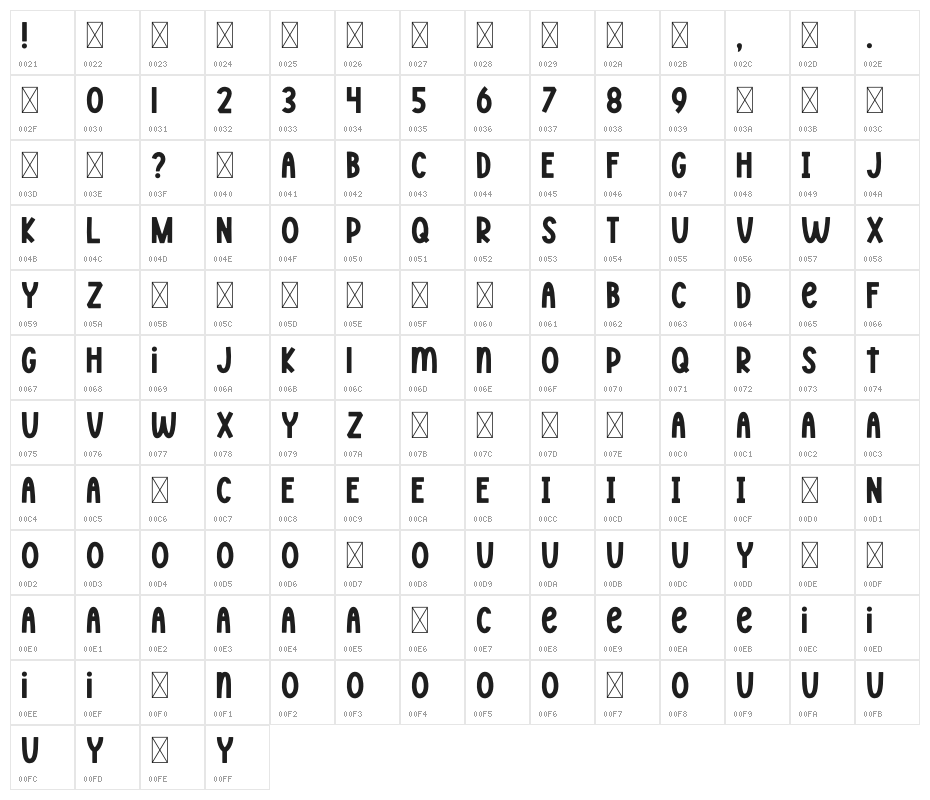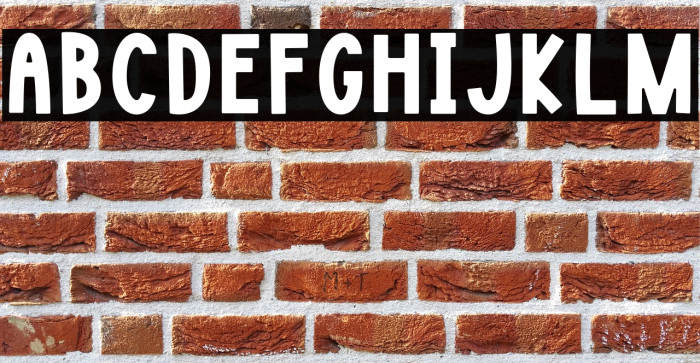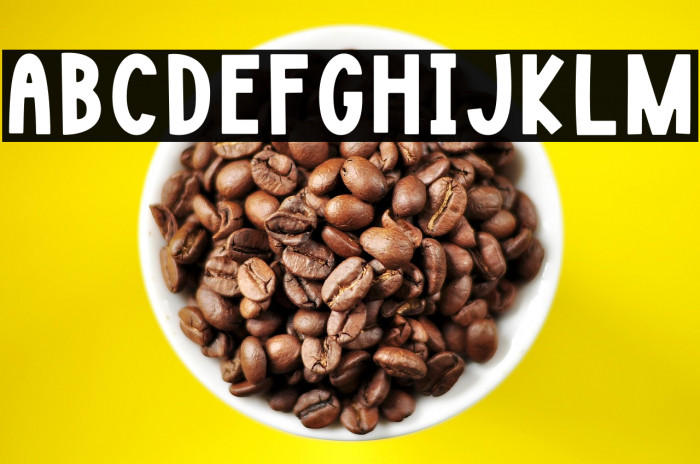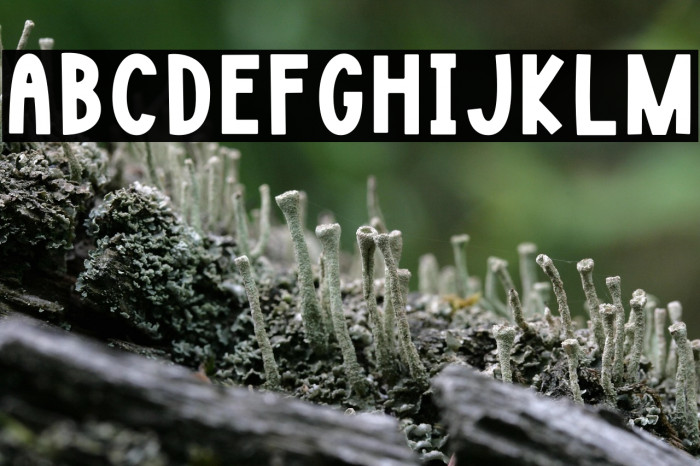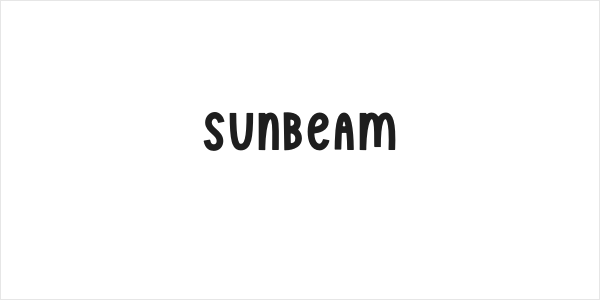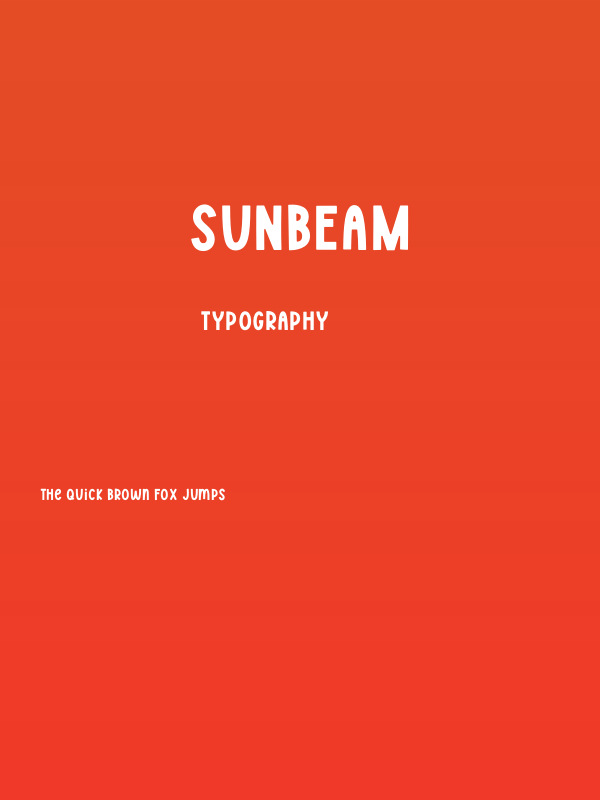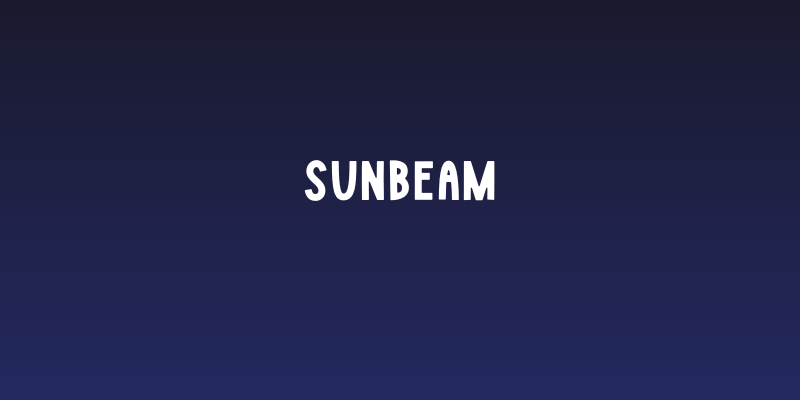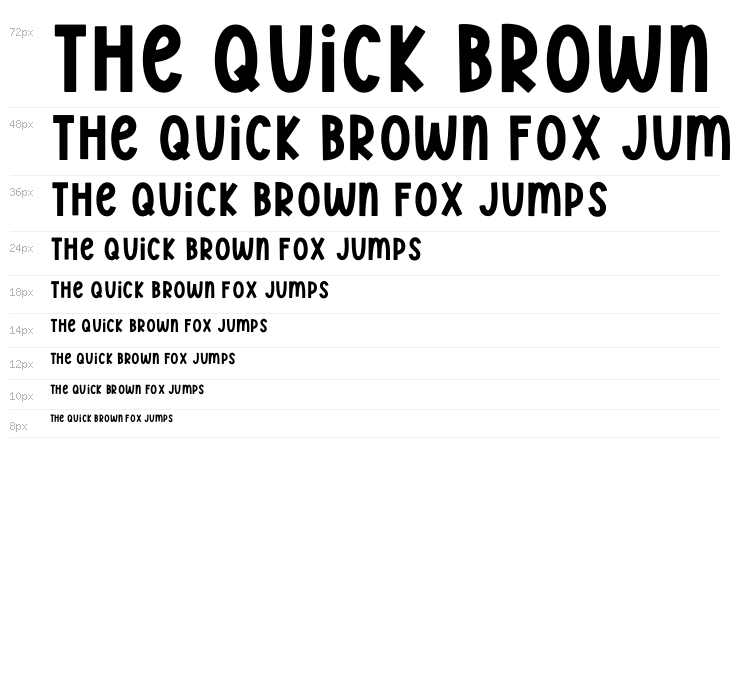
Sunbeam Font
Sunbeam Description
This font features a playful and bold style with rounded edges and a slightly irregular form, giving it a hand-drawn appearance. The uppercase and lowercase letters maintain a consistent weight, contributing to its friendly and approachable look. The numbers are equally bold and rounded, ensuring readability. The special characters are designed to match the overall style, making them suitable for various creative applications. Its unique character makes it ideal for projects that require a touch of whimsy and creativity.
| Proposed Projects | Ideal for children's books, playful branding, posters, and creative invitations. |